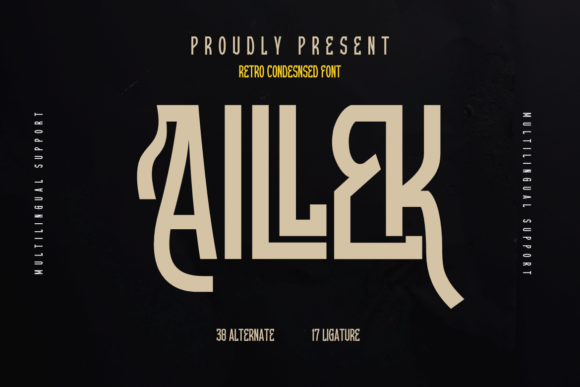
The Retro Charm of Aillek Font: A Designer’s Delight
I’ll never forget the time I was working on a vintage-themed project for a client, and I just couldn’t find the right font to capture that nostalgic feel. I scoured the internet, tried out dozens of fonts, but nothing seemed quite right. That was until I stumbled upon Aillek Font. ✨ With its lofty letterforms and alternate characters, Aillek instantly transported me back to the good old days of retro design. In this article, I’ll share my love for Aillek, its features, and how to make the most of this amazing font.
An Honest Review of Aillek Font
What I Love About Aillek Font
- ✨ Retro charm: Aillek’s unique design instantly adds a touch of nostalgia to any project.
- ✅ Alternate characters: The font comes with a range of alternate characters, making it easy to create unique and varied designs.
While Aillek is an amazing font, there are a few things to keep in mind: 🤔
- ⚠️ Limited use cases: Aillek is specifically designed for retro-style projects, so it may not be the best fit for more modern or minimalist designs.
The Backstory of Aillek Font
Aillek Font was designed by a team of creatives who wanted to capture the essence of retro design. Inspired by vintage posters, flyers, and advertisements, Aillek is a love letter to the design of yesteryear. The font’s unique design and features make it a must-have for any designer, marketer, or creative hobbyist looking to add a dash of nostalgia to their work.
Q: What is Aillek Font?
A: Aillek Font is a retro-style font designed to add a touch of nostalgia to your designs. It features lofty letterforms and alternate characters, making it perfect for creating vintage-themed projects.